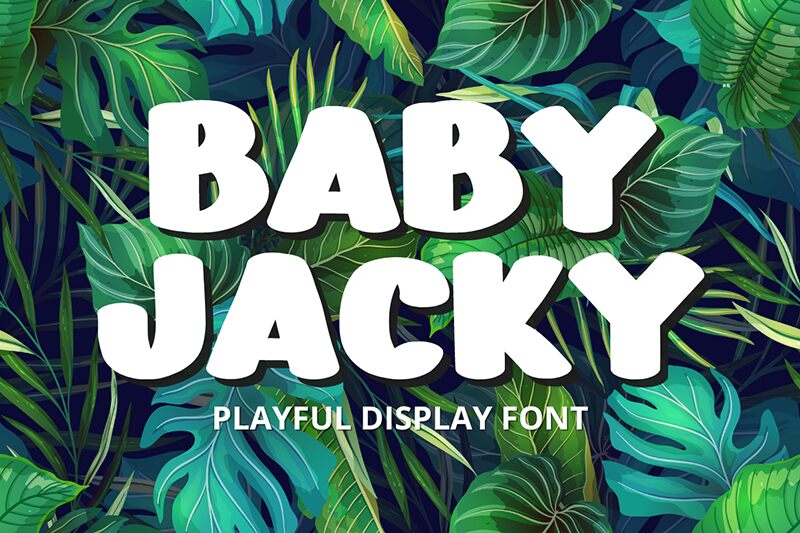
Baby Jacky font is a free cartoon display font designed by Muhammad Afif of Minimalist Eyes. The modern shapes combine with the organic edges creating an approachable collection perfect for today’s designs.
Use Baby Jacky in every design where you want to add a friendly spirit combined with an artistic handcrafted touch. It’s great for invitations, posters, flyer headings, book titles, video games interfaces, UI designs and playful website bodies. Use it on packaging such as chocolate wrappers or in kids’ projects including stickers, coloring books and more!
BABY JACKY